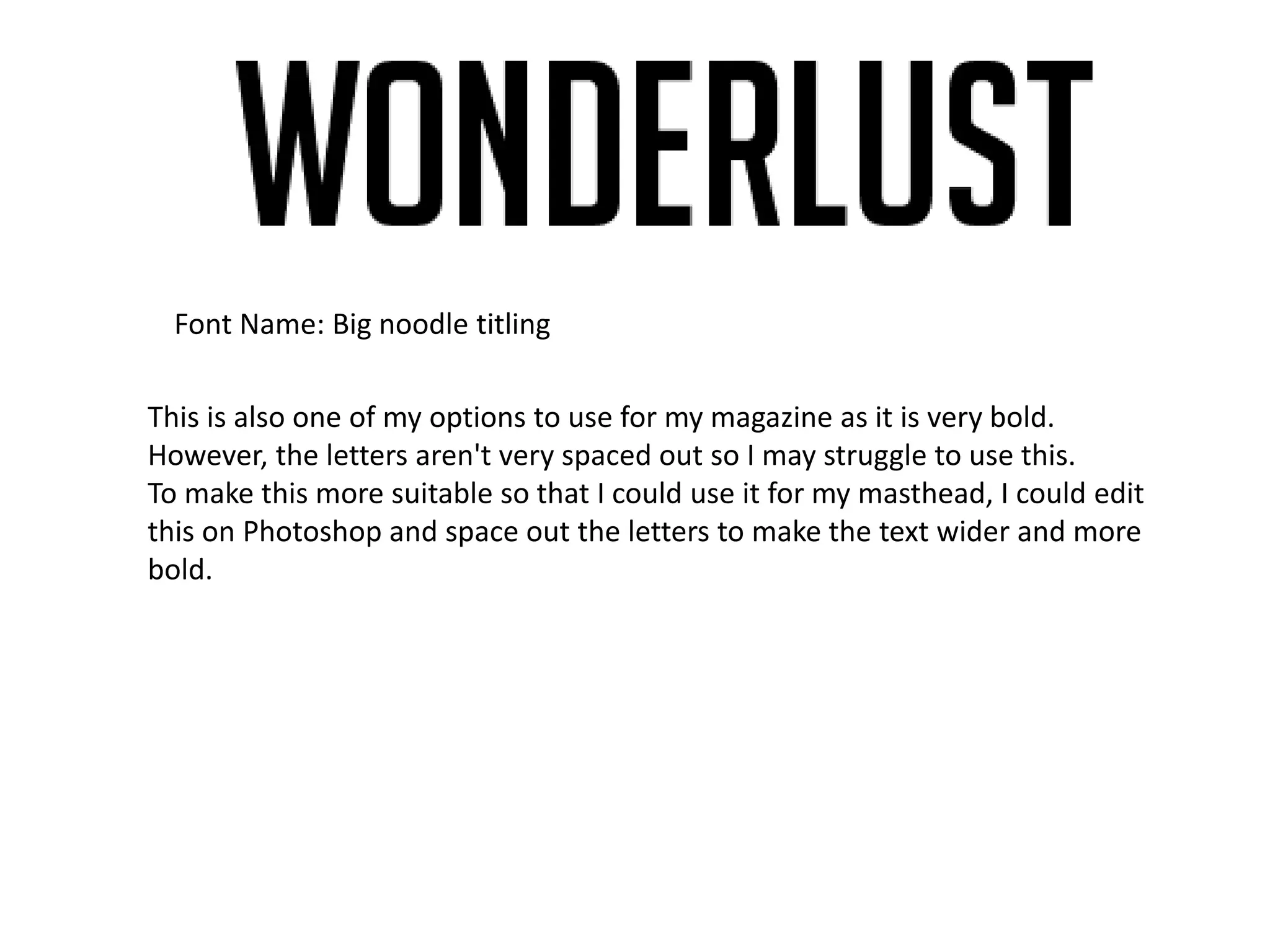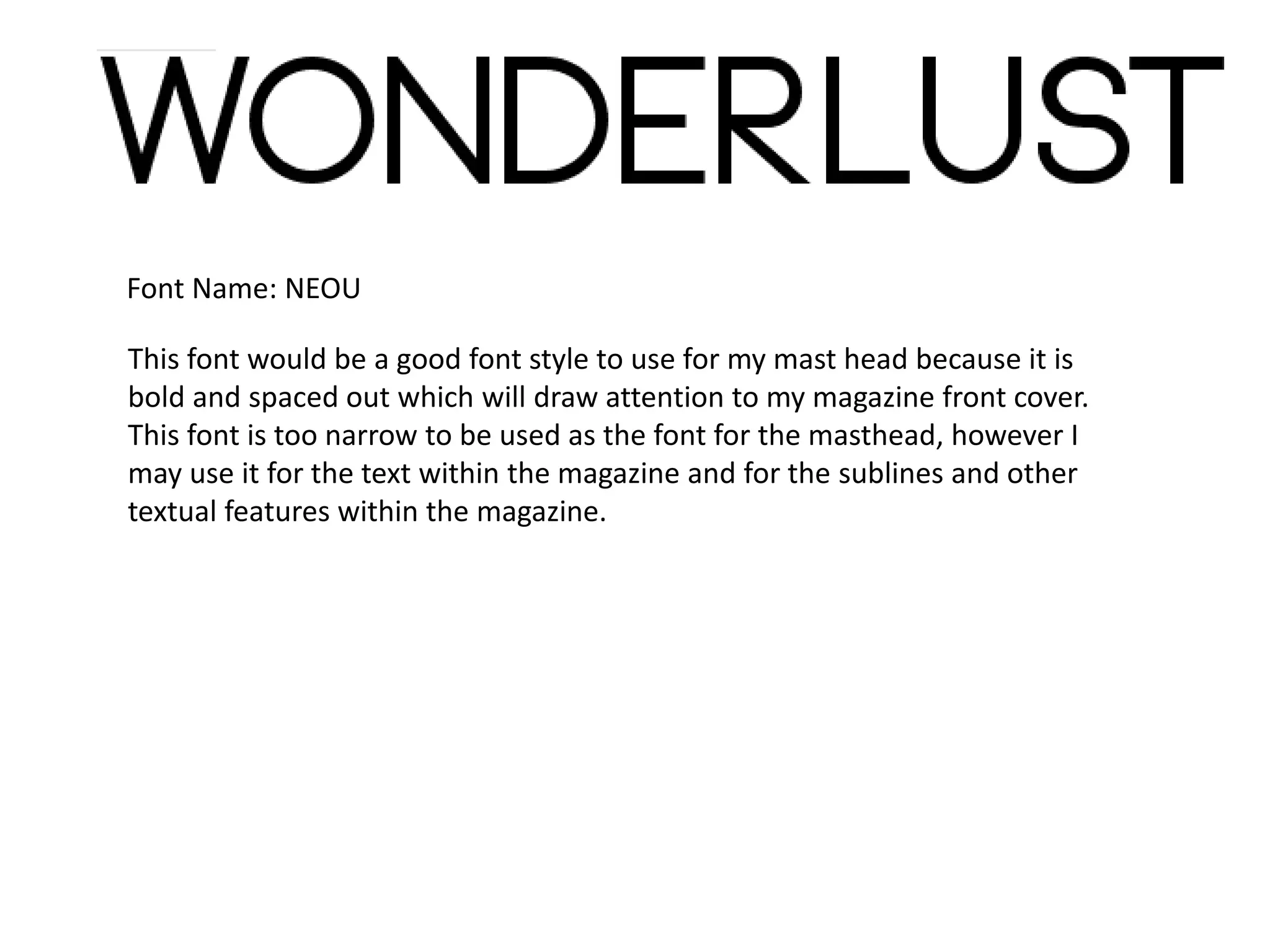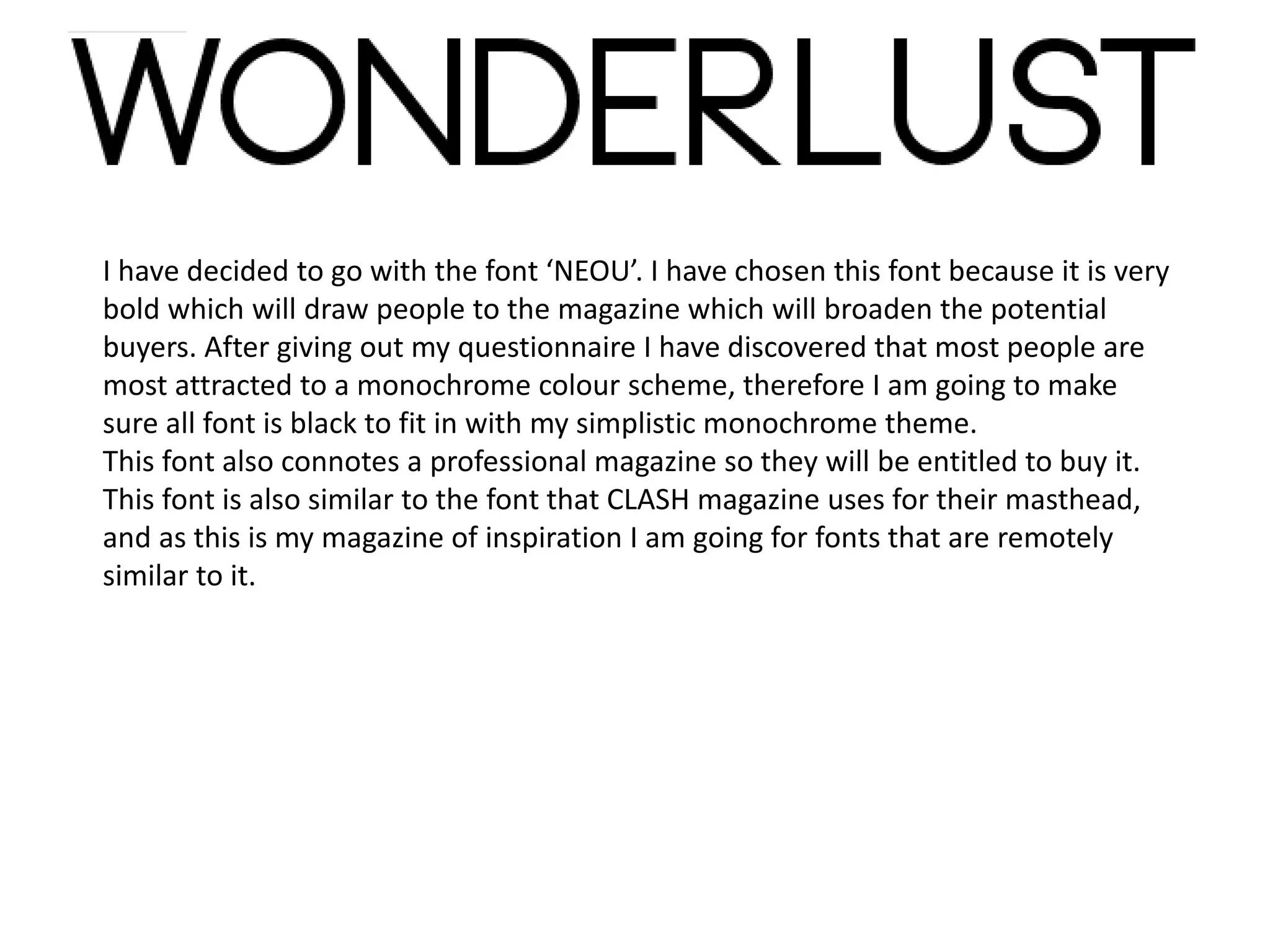
Masthead Font Styles
Font Name: Basic title font
This in one of my fonts that I like to possibly be the font that I use for my music
magazine front cover at is simplistic yet it still looks professional. However, because
this font is so narrow and simplistic I will not be able to use this for my masthead as it
will not stand out enough in order to attract a pass along audience.
For my masthead I will need a bolder font so it attracts people to look at it.
Font Name: Big noodle titling
This is also one of my options to use for my magazine as it is very bold.
However, the letters aren't very spaced out so I may struggle to use this.
To make this more suitable so that I could use it for my masthead, I could edit
this on Photoshop and space out the letters to make the text wider and more
bold.
Font Name: NEOU
This font would be a good font style to use for my mast head because it is
bold and spaced out which will draw attention to my magazine front cover.
This font is too narrow to be used as the font for the masthead, however I
may use it for the text within the magazine and for the sublines and other
textual features within the magazine.
I have decided to go with the font ‘NEOU’. I have chosen this font because it is very
bold which will draw people to the magazine which will broaden the potential
buyers. After giving out my questionnaire I have discovered that most people are
most attracted to a monochrome colour scheme, therefore I am going to make
sure all font is black to fit in with my simplistic monochrome theme.
This font also connotes a professional magazine so they will be entitled to buy it.
This font is also similar to the font that CLASH magazine uses for their masthead,
and as this is my magazine of inspiration I am going for fonts that are remotely
similar to it.